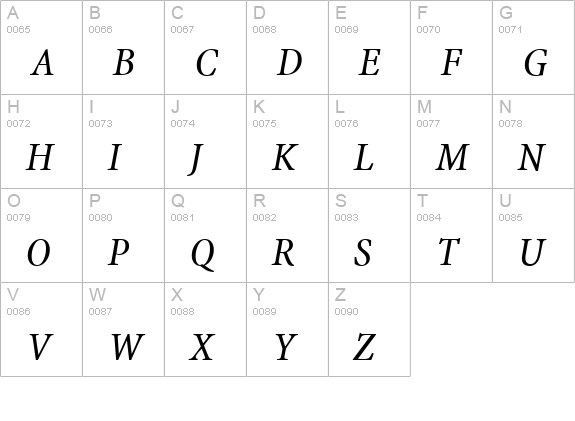
Minion Web Pro Italic Font Details
Minion Web Pro Italic is a distinctive, italic variant in the Minion typeface family \xE2\x80\x94 well suited to design and typography projects.
Minion Web Pro Italic font is a stylish and versatile typeface that exudes elegance and sophistication. With its sleek design and slanted italic style, this font is perfect for adding a touch of flair to any project. Whether you're designing a website, creating marketing materials, or crafting invitations, Minion Web Pro Italic font is sure to make a statement. The best part? This beautiful font is available for free download at FontsMarket.com. That's right, you can elevate your designs with this high-quality typeface without spending a dime. Don't miss out on the opportunity to enhance your creative projects with Minion Web Pro Italic font - download it today and let your creativity shine!